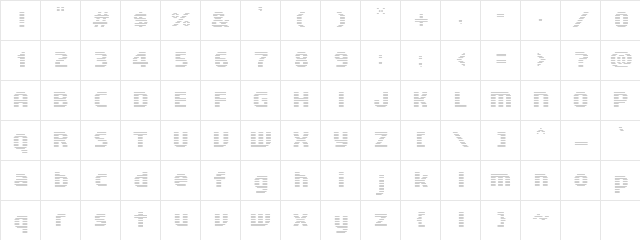
Cardew Six Light
Design Context for Cardew Six Typeface
Cardew Six takes a measured approach to typography — its balanced proportions and neutral character make it a reliable workhorse for both digital and print work. The delicate stroke weight brings airiness and refinement to layouts.
Pro Tip: Use Cardew Six in both headline and body roles to test its range before committing to a single application.